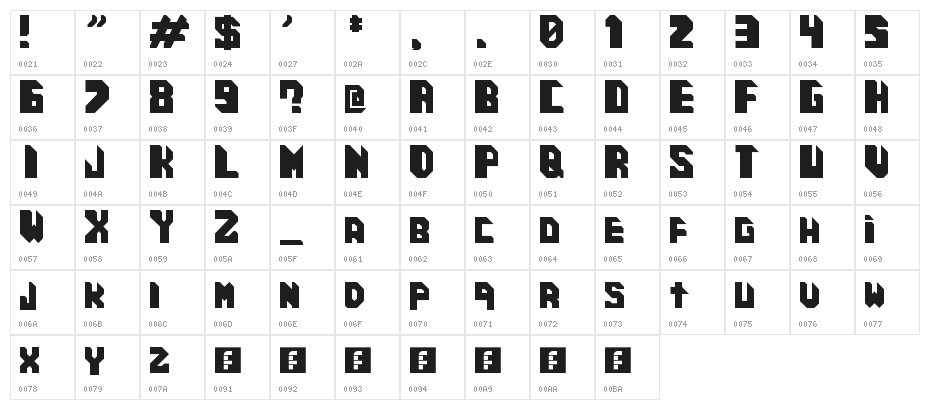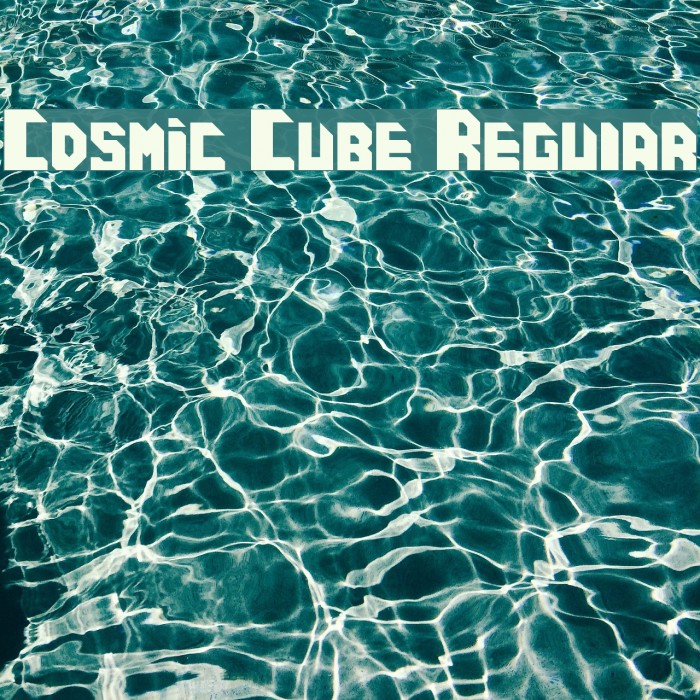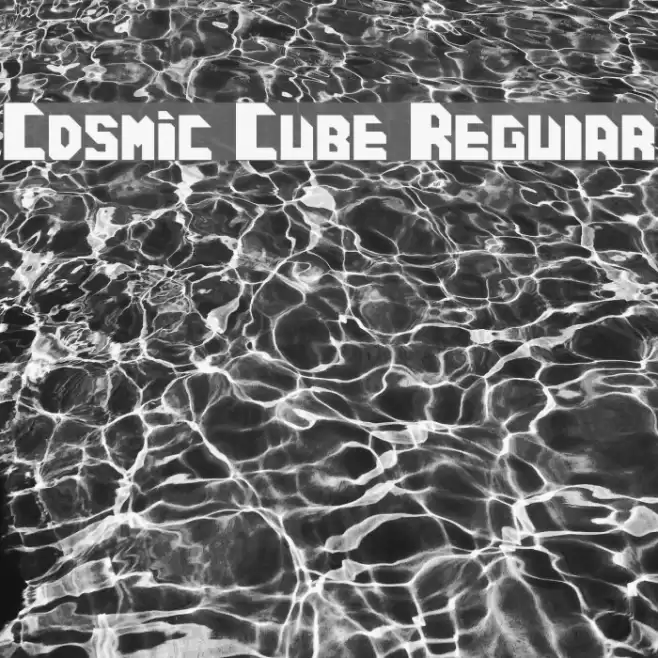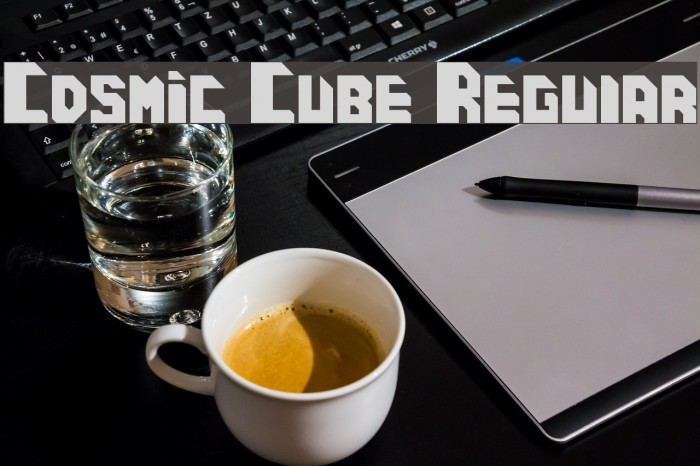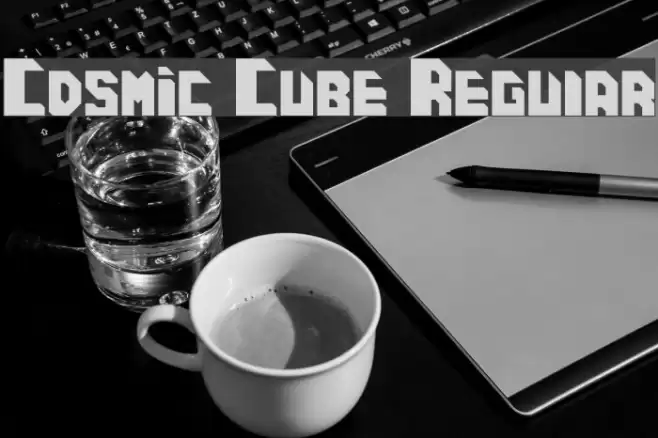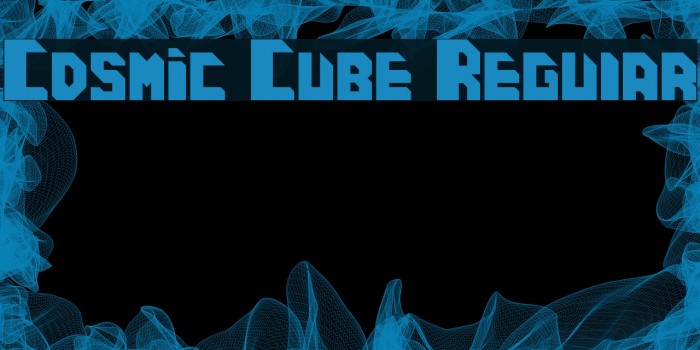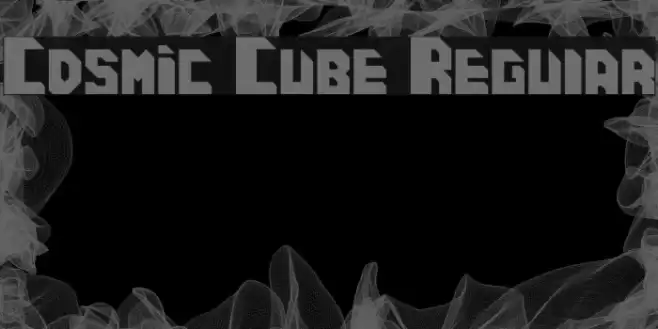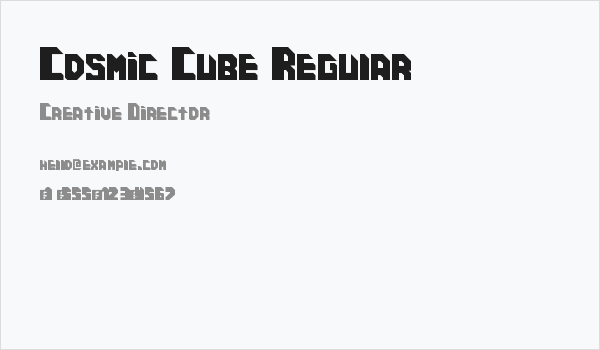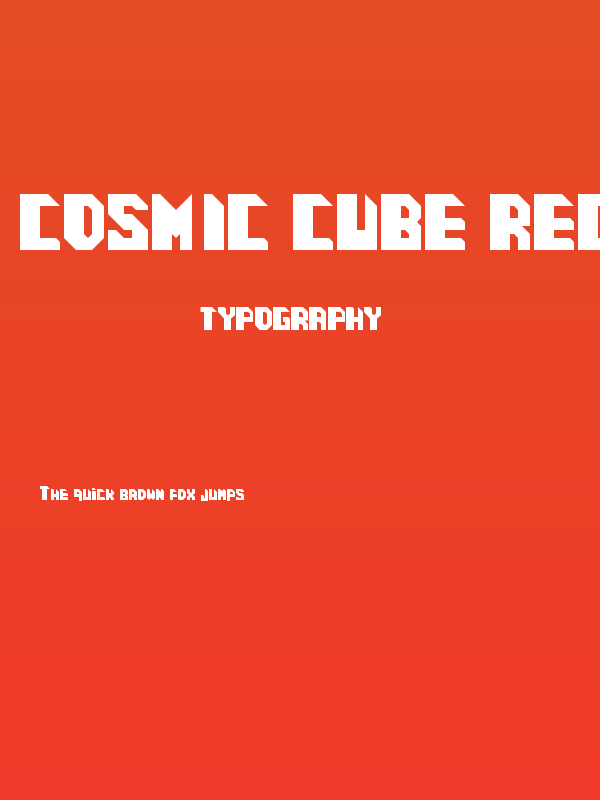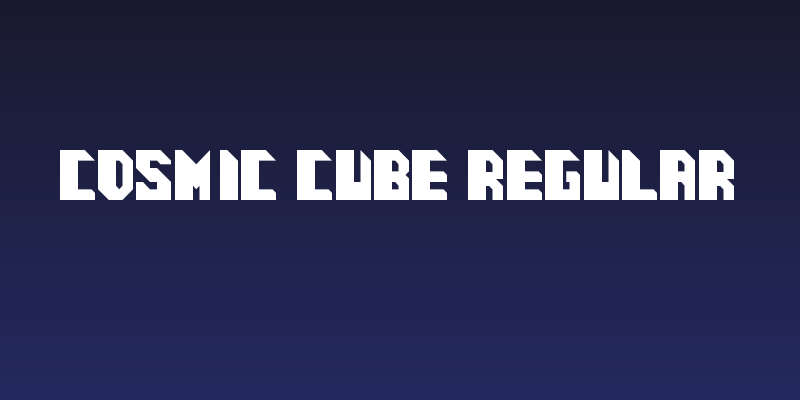
Cosmic Cube Regular Font
Cosmic Cube Regular Description
This font features a bold and geometric design, characterized by its blocky and angular letterforms. The uppercase and lowercase letters maintain a consistent width, creating a uniform appearance. The numbers and special characters follow the same geometric style, enhancing the overall cohesiveness. The font's distinct, futuristic look makes it ideal for projects that require a modern and edgy aesthetic. Its strong presence and unique style make it suitable for attention-grabbing headlines and logos.
| Proposed Projects | Ideal for sci-fi themed posters, video game titles, tech company logos, and modern branding materials. |